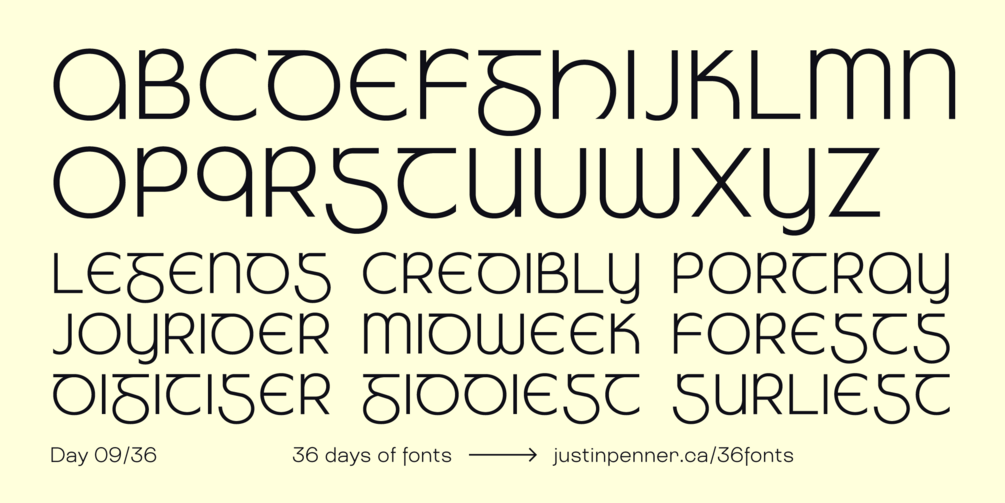
36 Days of Fonts: Day 09
Irish Geo
When I visited Ireland for the first time in January, I fell in love with the Irish lettering style, which appears not only on pubs and shops across the country, but in a strange hybrid sans-serif design on their highway signs! I was obsessed, and picked up a copy of Dermot McGuinne's *Irish Type Design* from the National Print Museum in Dublin.
My goal with this design was to come up with a set of geometric capital letters that have a strong Irish-like appearance, taking inspiration from a wide variety of historic Irish typefaces. It wanted to be just on the line of being legible to modern readers, so I had to make some tough judgement calls.
• First, the Irish script does not contain j, k, q, v, w, x, y, and z. But, due to loanwords and mixing of Irish and English, history shows many examples of Irish typefaces that include different interpretations of some of these letters.
• The /V has a curved bottom, while the /U is the same but with a stem, so readers will need context of the surrounding letters to recognise a /V.
• The /G is, to me, the quintessential Irish letterform. It's so unusual, but readers unfamiliar with it can almost always read it, in my experience. It bears some resemblance to a double-storey /g, but with the upper storey flattened into a horizontal line; then the whole glyph is stretched from the cap line down to the baseline, or in many cases the descender line.
• The /S was a formidable problem to solve. The historic Irish /S is the only design that is completely unrecogniseable to most readers today. It resembles a long s (ſ), which is an archaic form of the the Latin lowercase /s, but in Irish it was stretched into a capital letter, with a split stem at the top. After many attempts, I designed a completely new form that is recogniseably modern, but retains one clear reference to the historic Irish form.